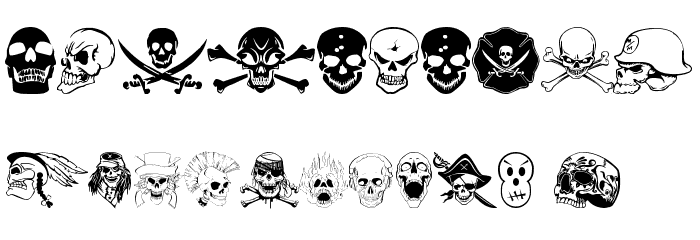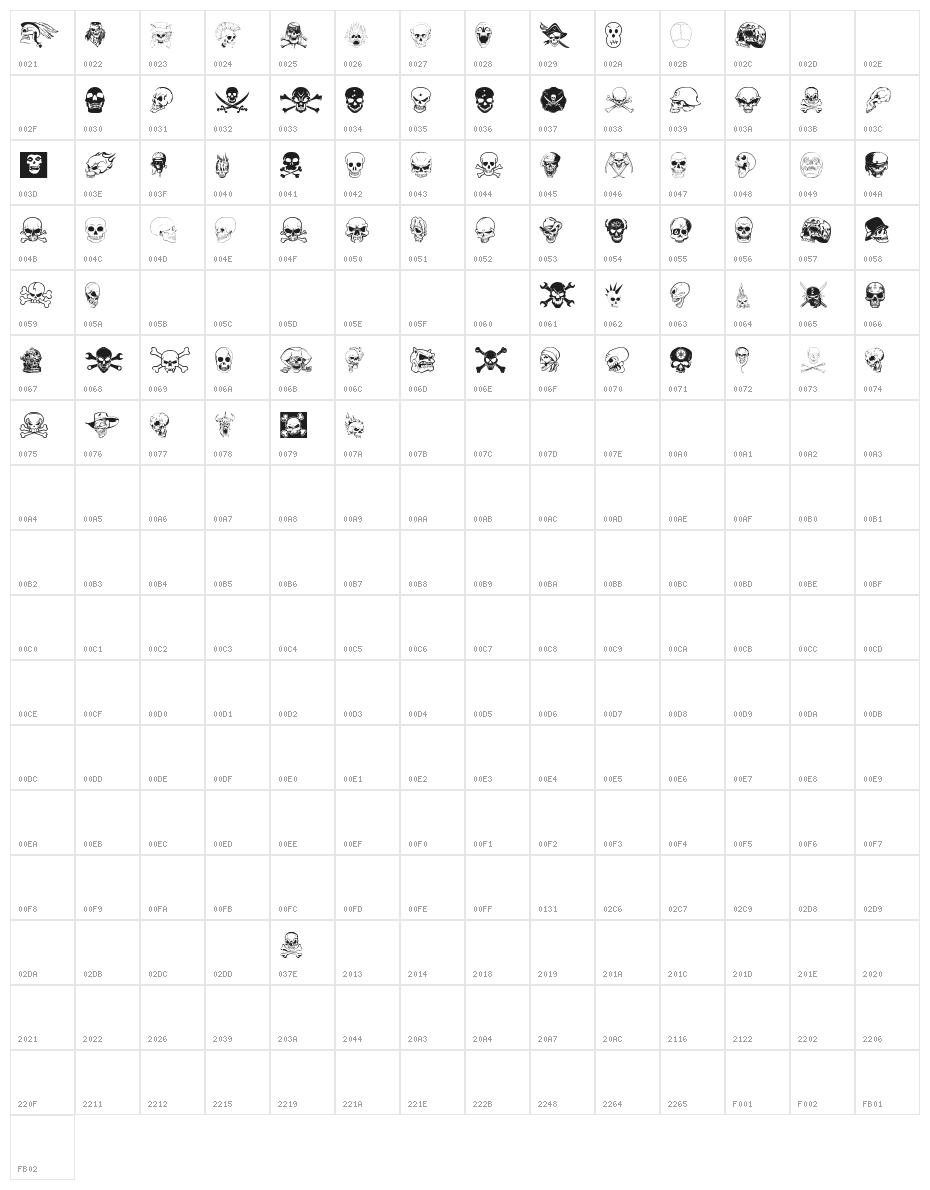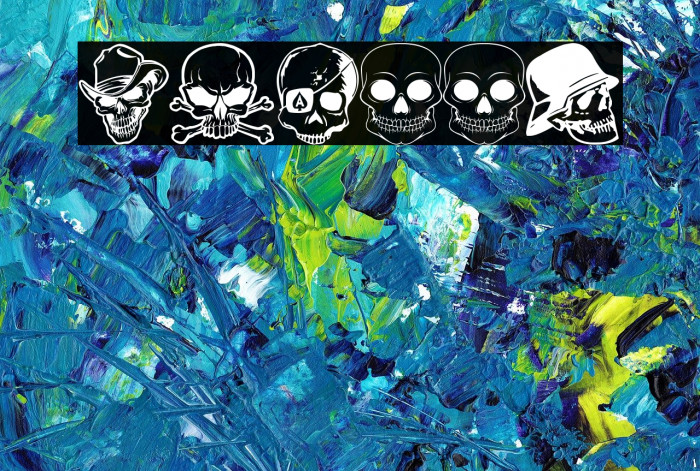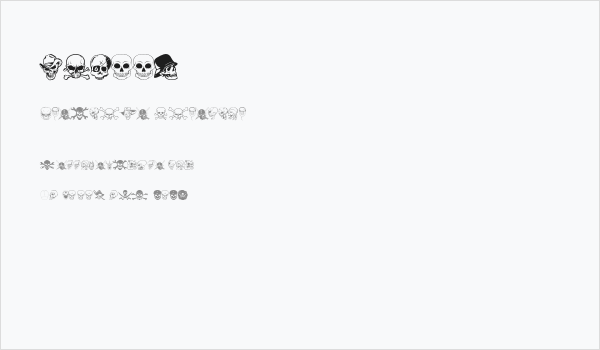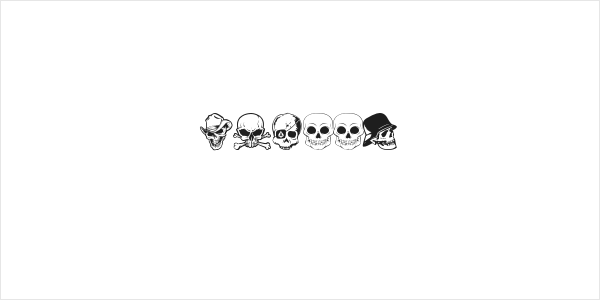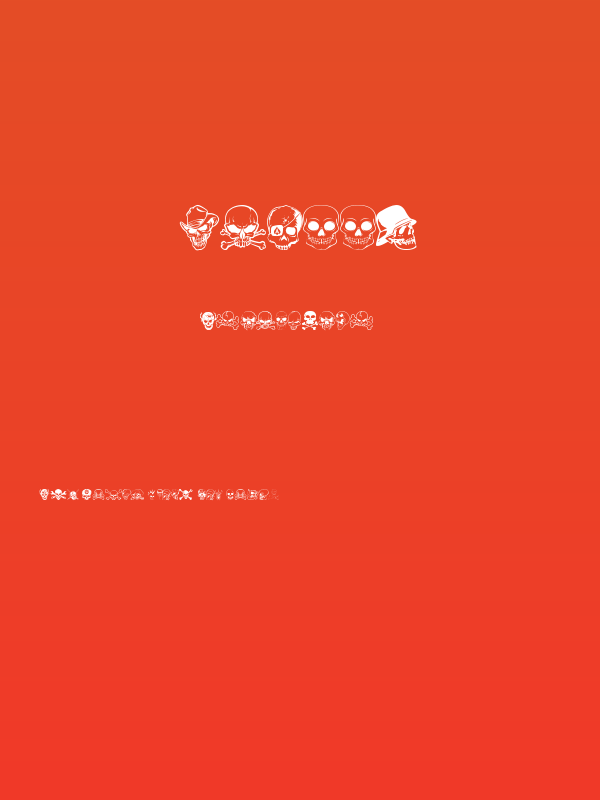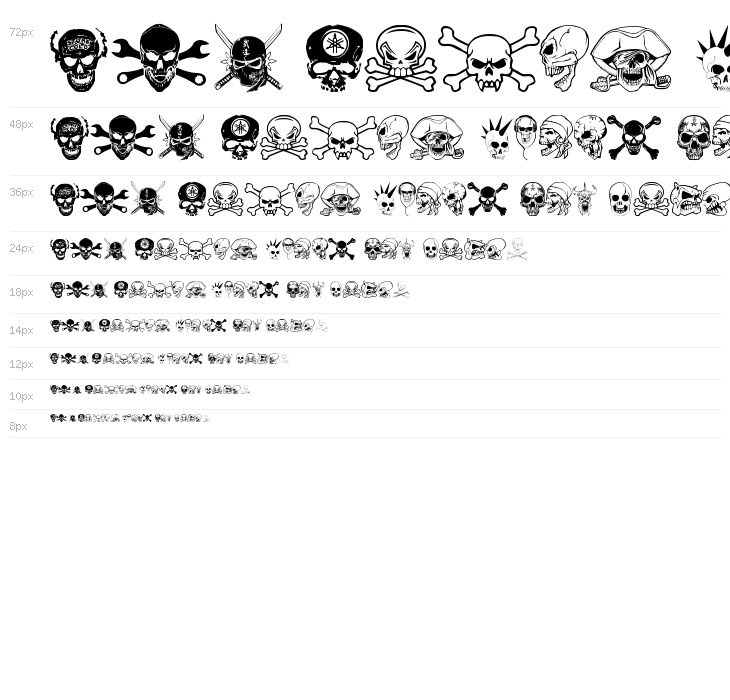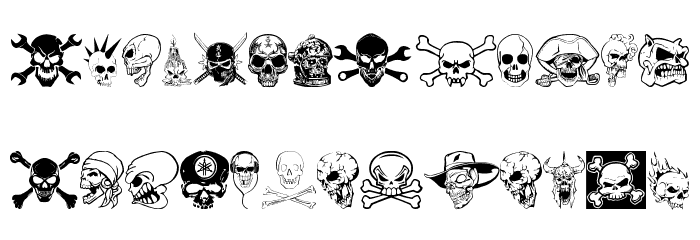
SKULLX Font
SKULLX Description
A decorative display font consisting entirely of various detailed skull and crossbones illustrations, each glyph featuring a unique skull design with different expressions, accessories, and artistic styles. The characters are highly stylized and illustrative, making them suitable for thematic or graphic-heavy projects.
| Overall Style | Decorative, Edgy, Thematic |
| Use Case | Logos, Posters, Themed Graphics, Event Flyers |
| Proposed Projects | Halloween posters, pirate-themed events, tattoo designs, rock band logos, edgy apparel graphics, party invitations. |